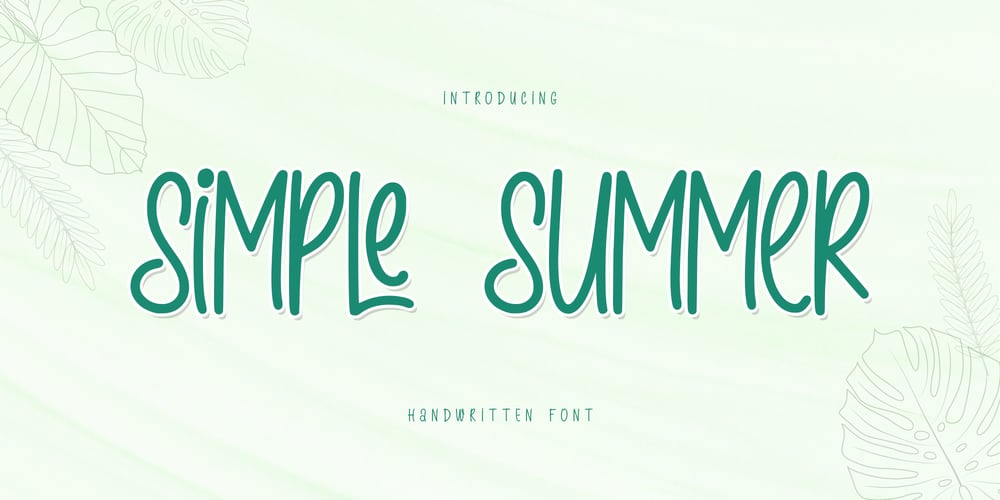
Simple Summer Font Family was designed by Alif Ryan Zulfikar and published by Sakha Design. Simple Summer contains 2 styles and family package options. Simple Summer is a cute and quirky handwritten font with an incredibly friendly feel. Whether you’re looking for fonts for Instagram or handwritten scripts for DIY projects, Simple Summer will turn any creative idea into a true piece of art! This font is PUA encoded which means you can access all of the amazing glyphs and ligatures with ease!